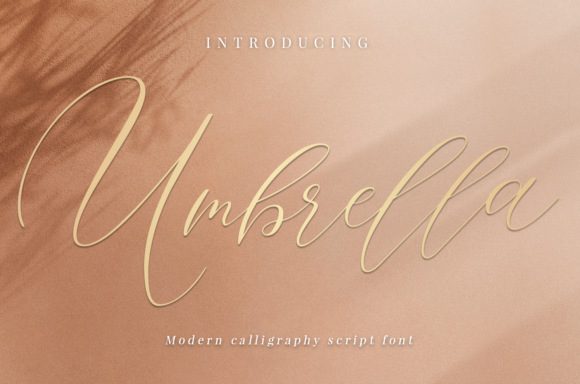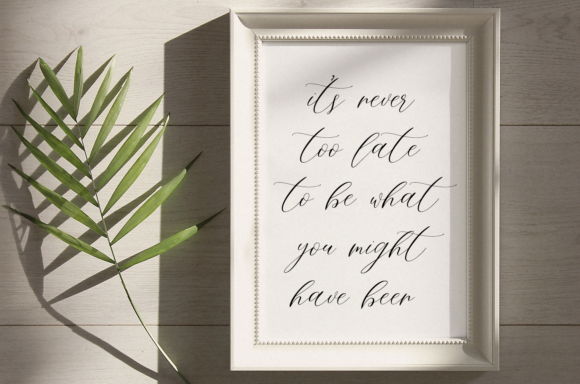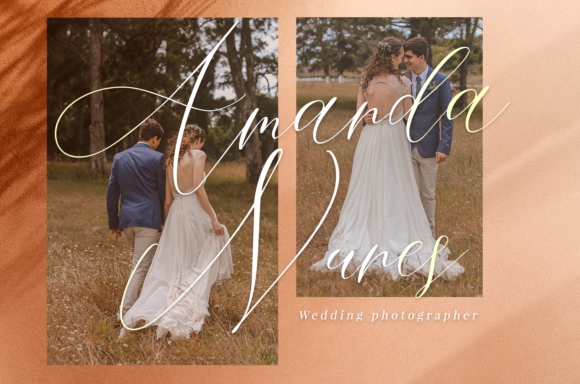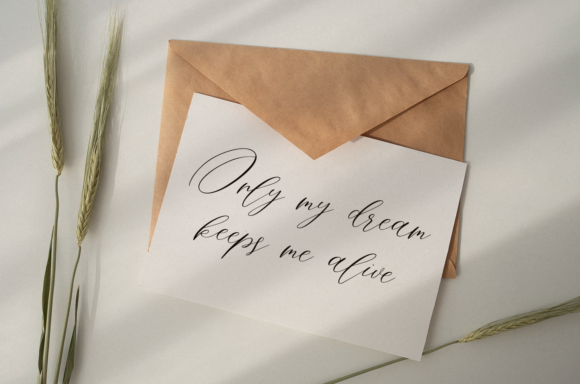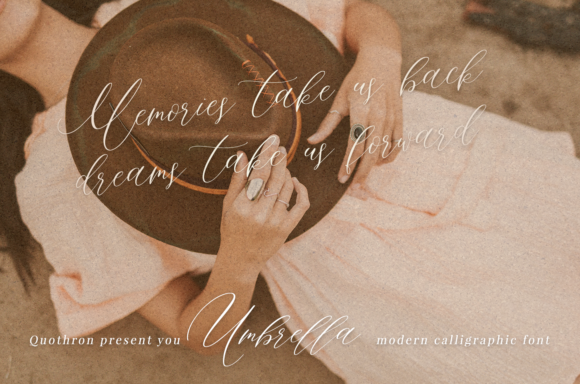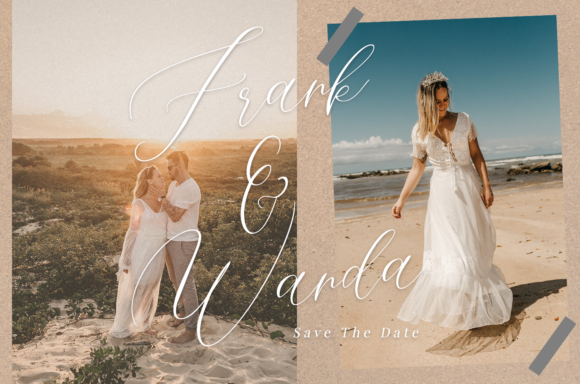
Umbrella Script Font
About Umbrella Script Font
Umbrella is a fresh and fashionable script that pays homage to classic calligraphy. Get inspired by its dazzling look.